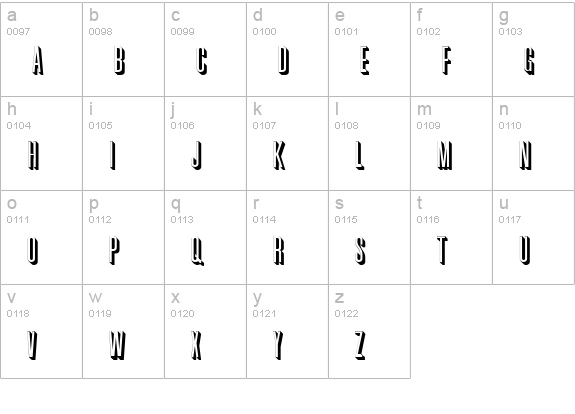
The Great Shadow font is a stunning display typeface that exudes elegance and sophistication. Its bold letters cast a striking shadow effect, making it perfect for creating eye-catching designs and adding a touch of drama to any project. With its sleek and modern look, the Great Shadow font is versatile and can be used for various design purposes, such as logos, branding, posters, and more. What's even better is that the Great Shadow font is completely free to download at FontsMarket.com. This means you can easily access this stylish typeface and incorporate it into your creative projects without any hassle. Don't miss out on adding this remarkable font to your collection and elevate your designs with the captivating allure of the Great Shadow font.